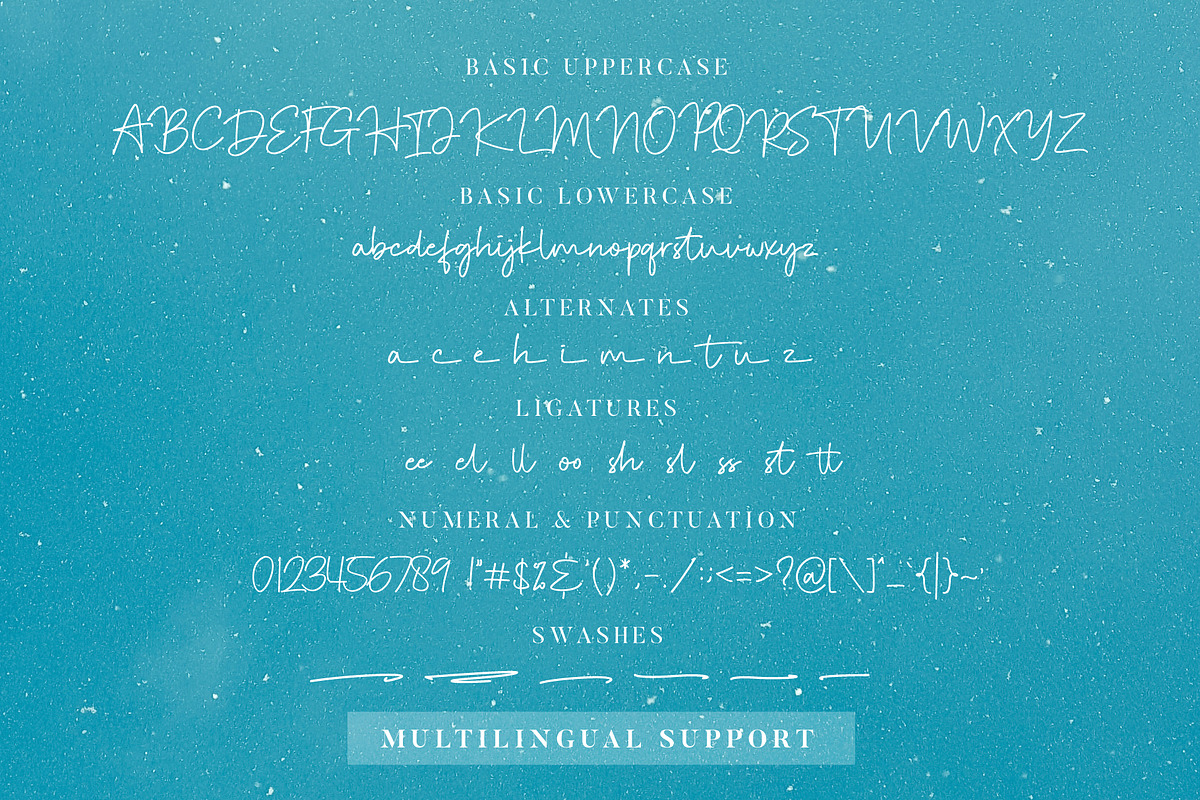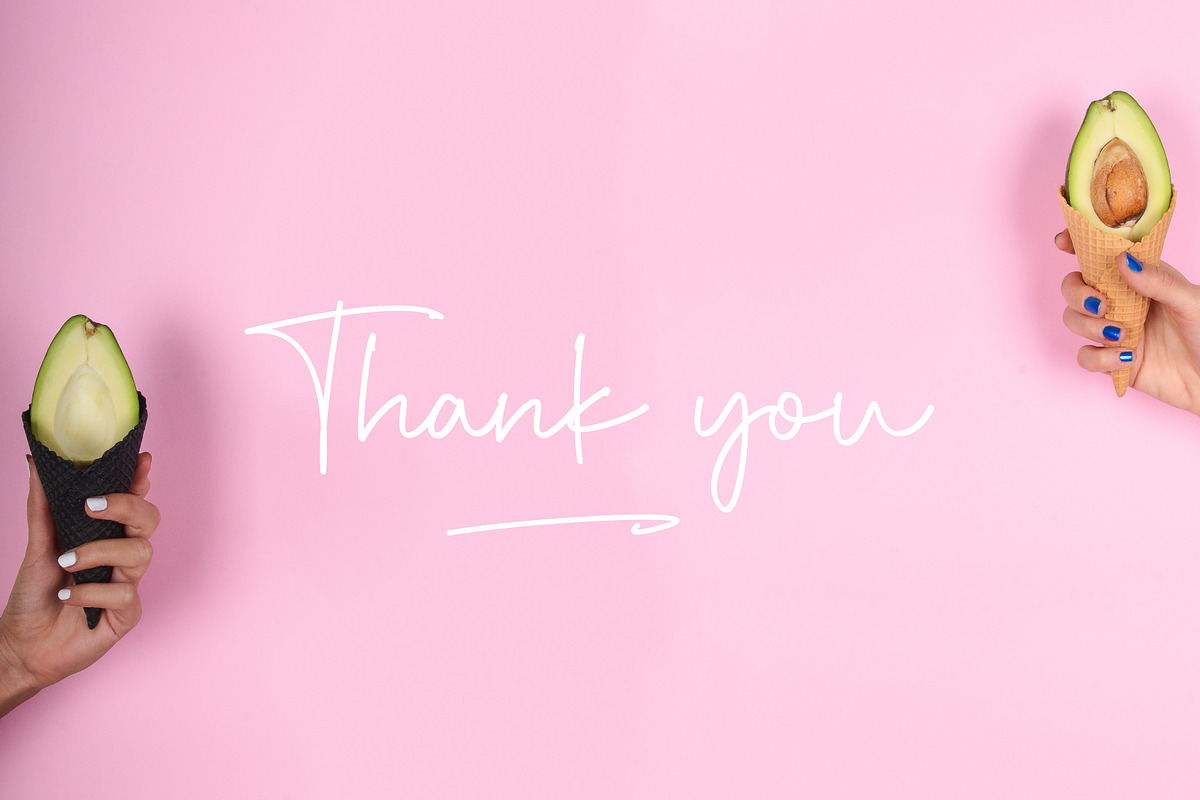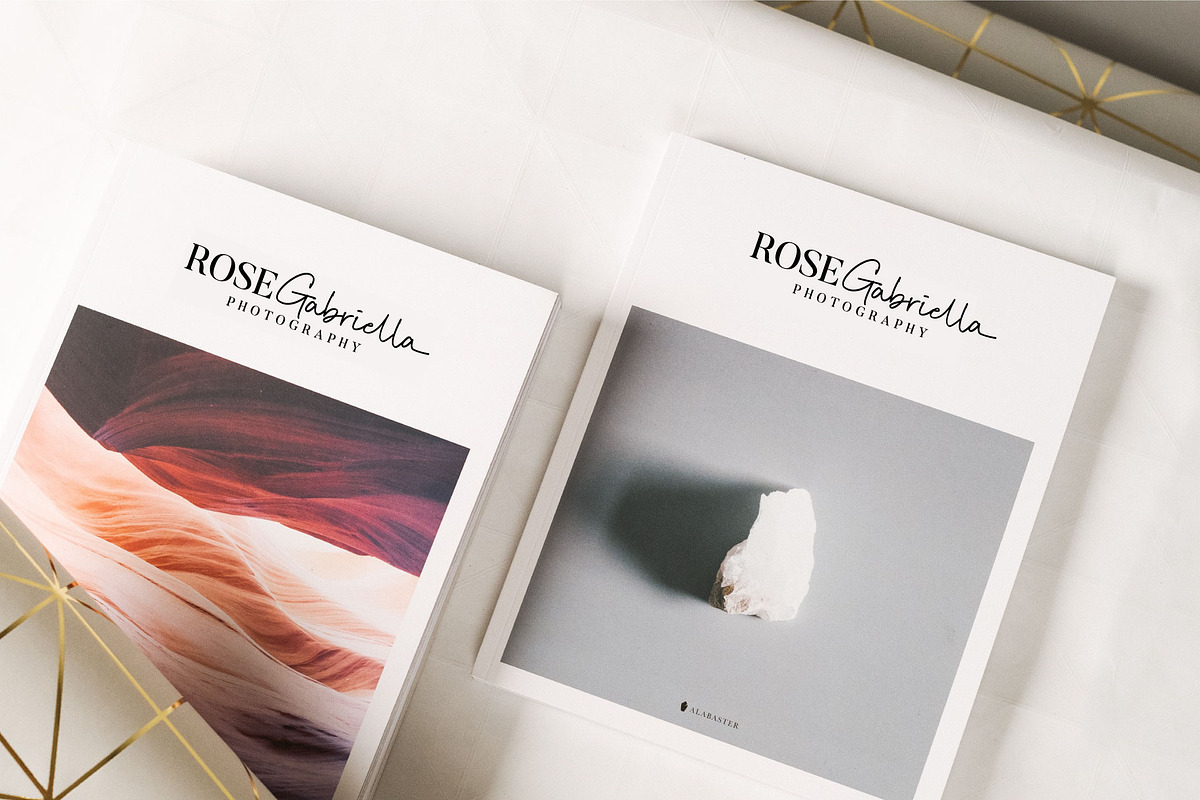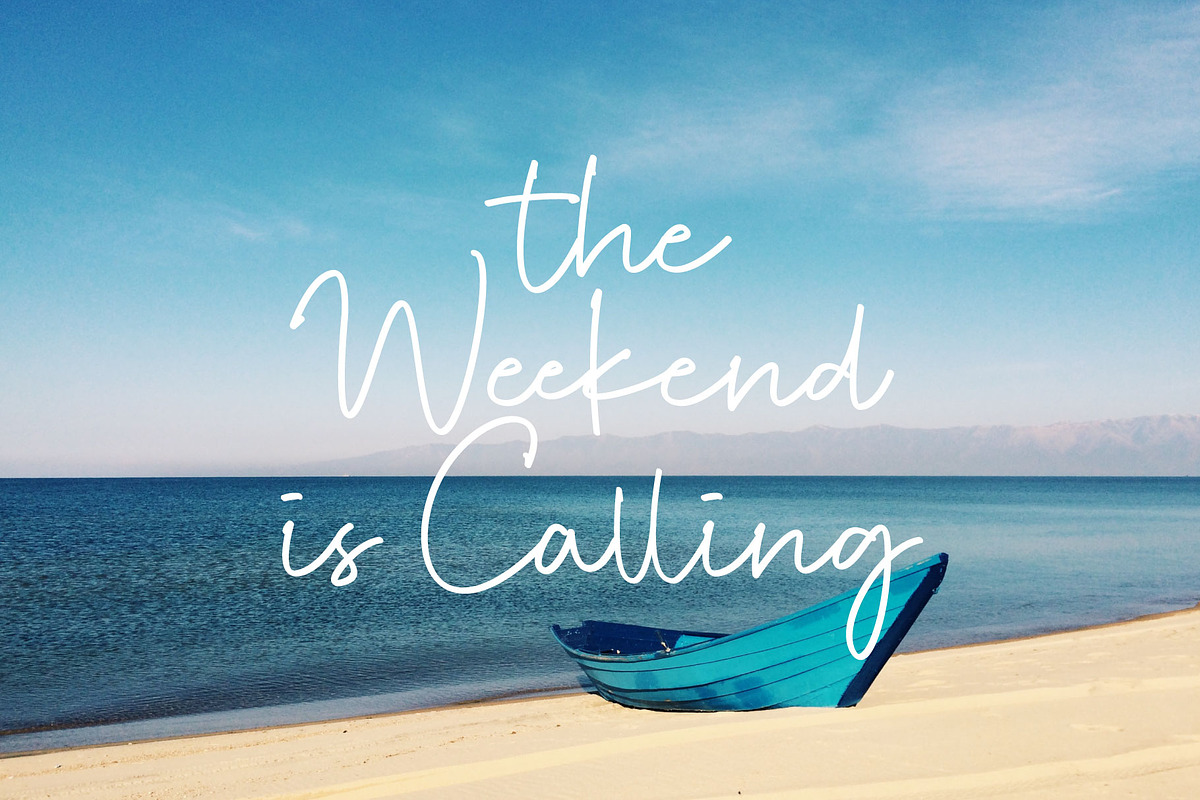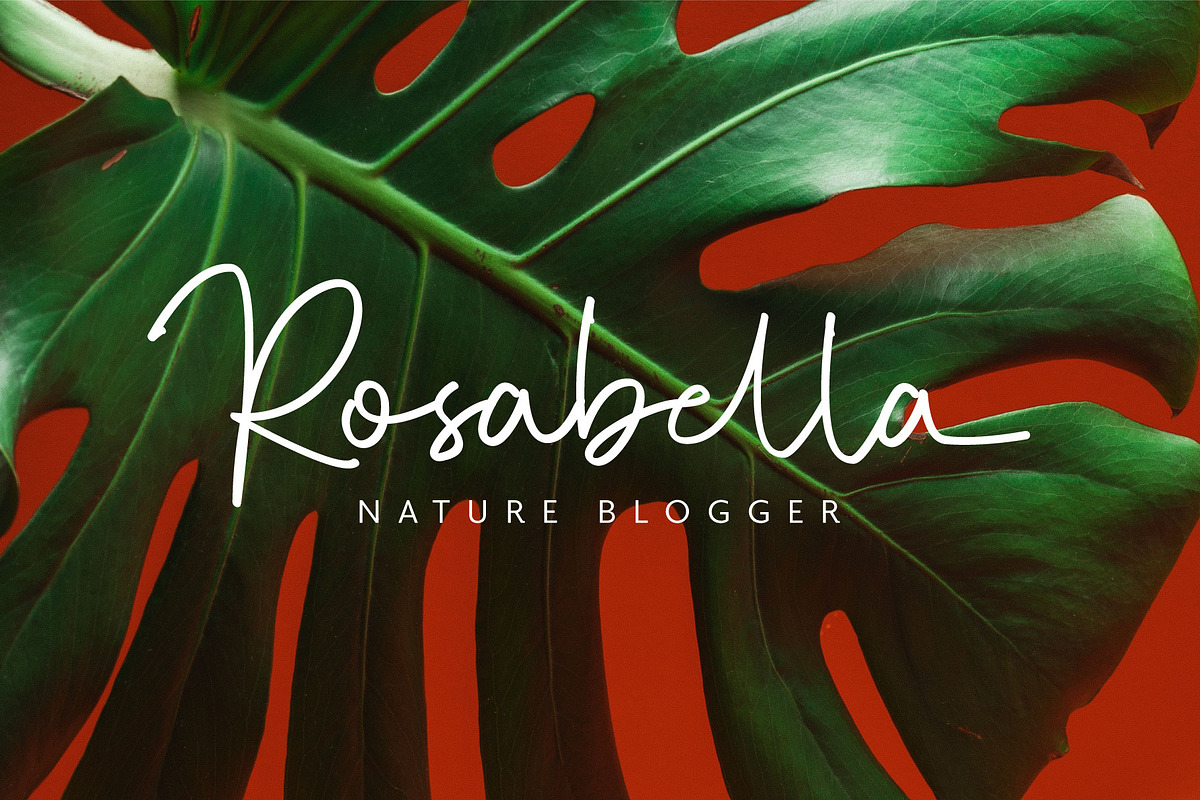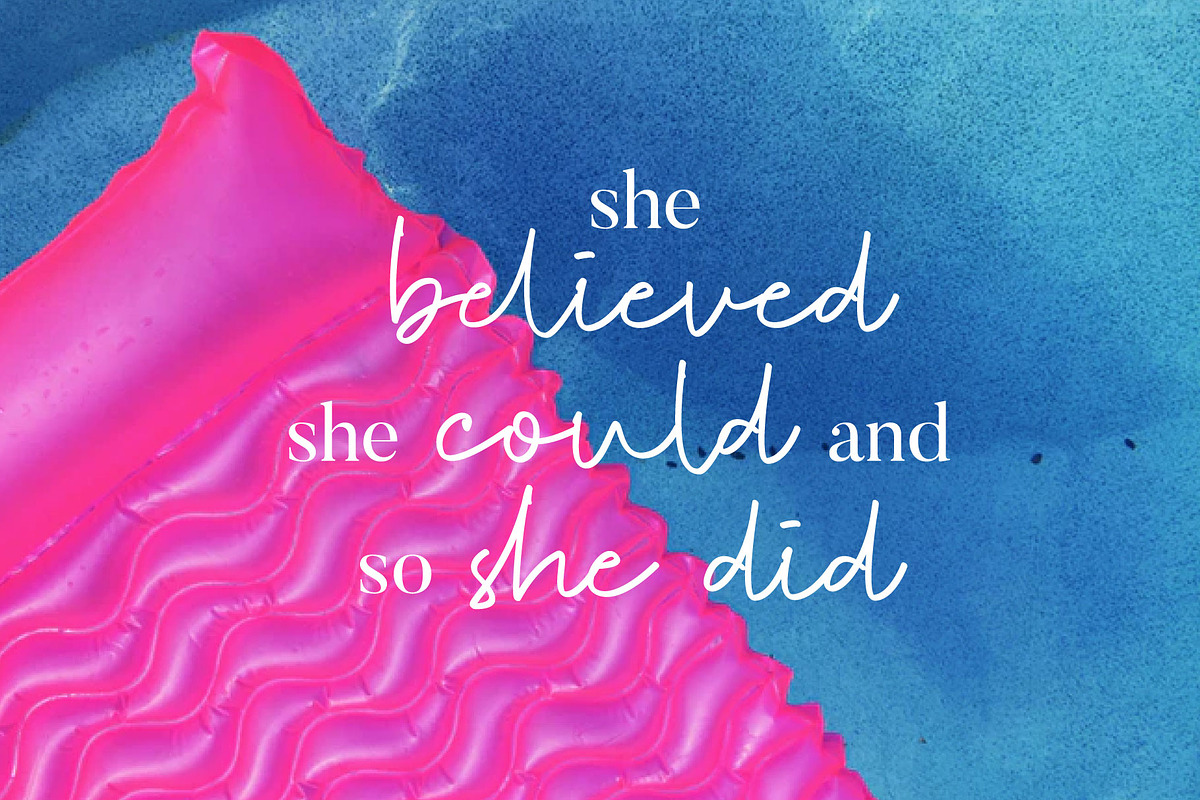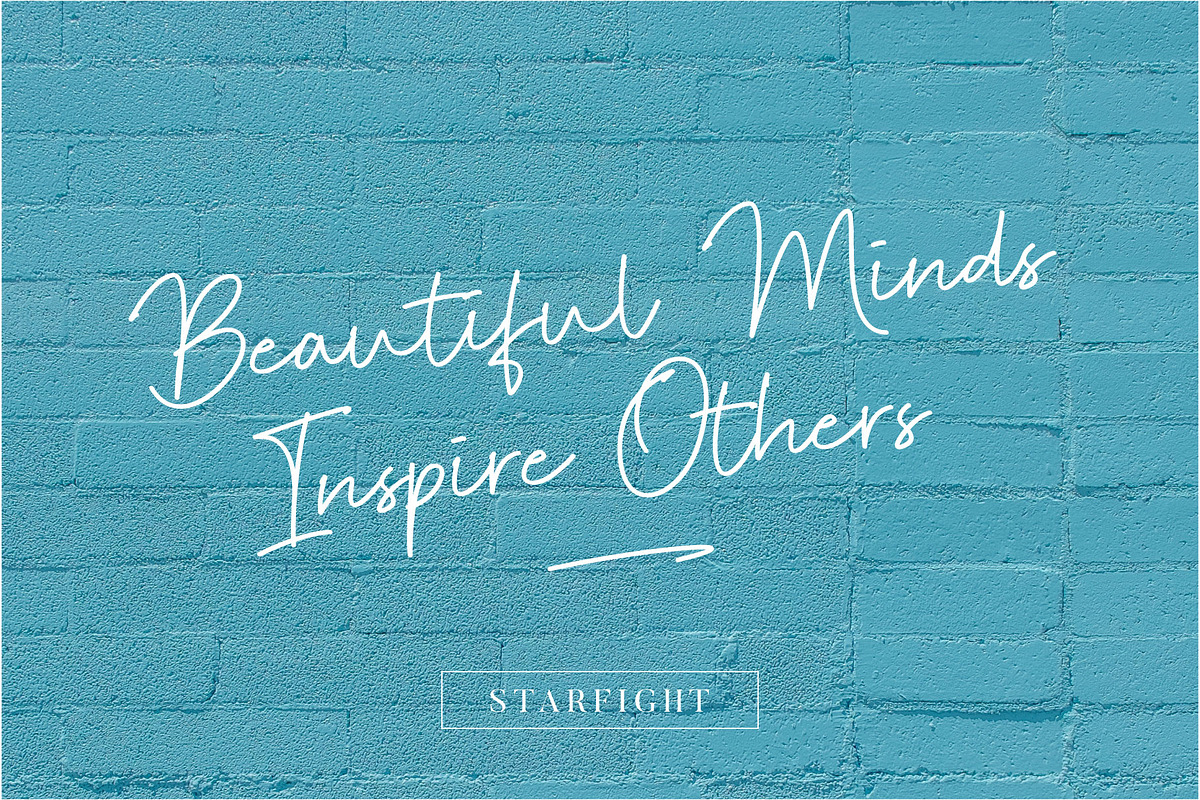
Starfight | Handwritten Font
Starfight is a modern and fresh script font. Its handwritten style will bring an elegant, natural, and stylish look to your designs.
It’s perfect for photography, watermarks, social media posts, advertisements, logos & branding, invitations, product designs, labels, stationery, wedding designs, product packaging, special events, and anything that needs a handwriting taste.
Fonts include multilingual support for; ÀÁÂÃÄÅÆÇÈÉÊËÌÍÎÏÐÑÒÓÔÕÖØÙÚÛÜÝßàáâãäåæçèéêëìíîïðñòóôõöøùúûüýÿ